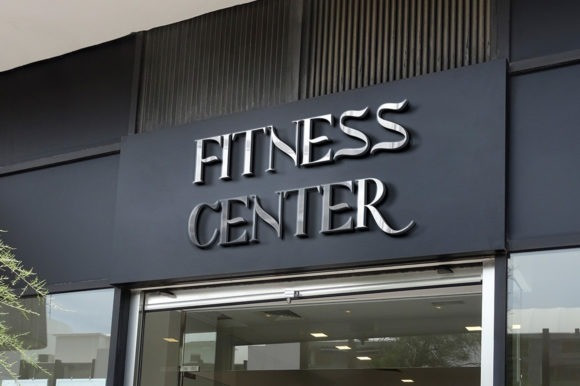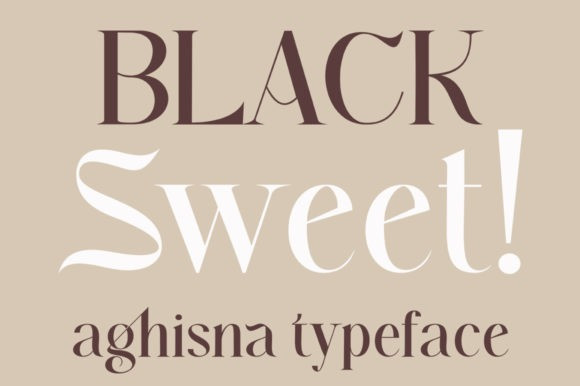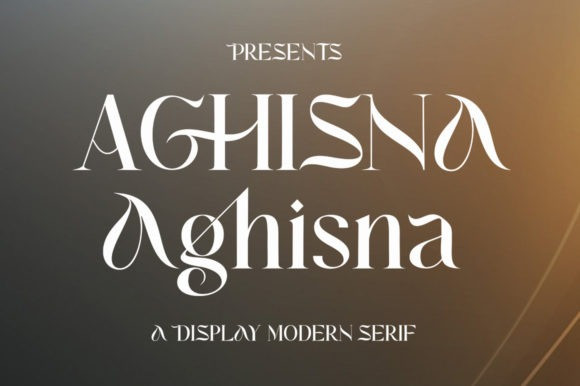
Aghisna Font
Aghisna Serif Font is a distinct, elegant and stylish display font. It is PUA encoded which means you can access all of the glyphs and swashes with ease!
Fall for its outstanding vibe and elevate each of your design ideas.